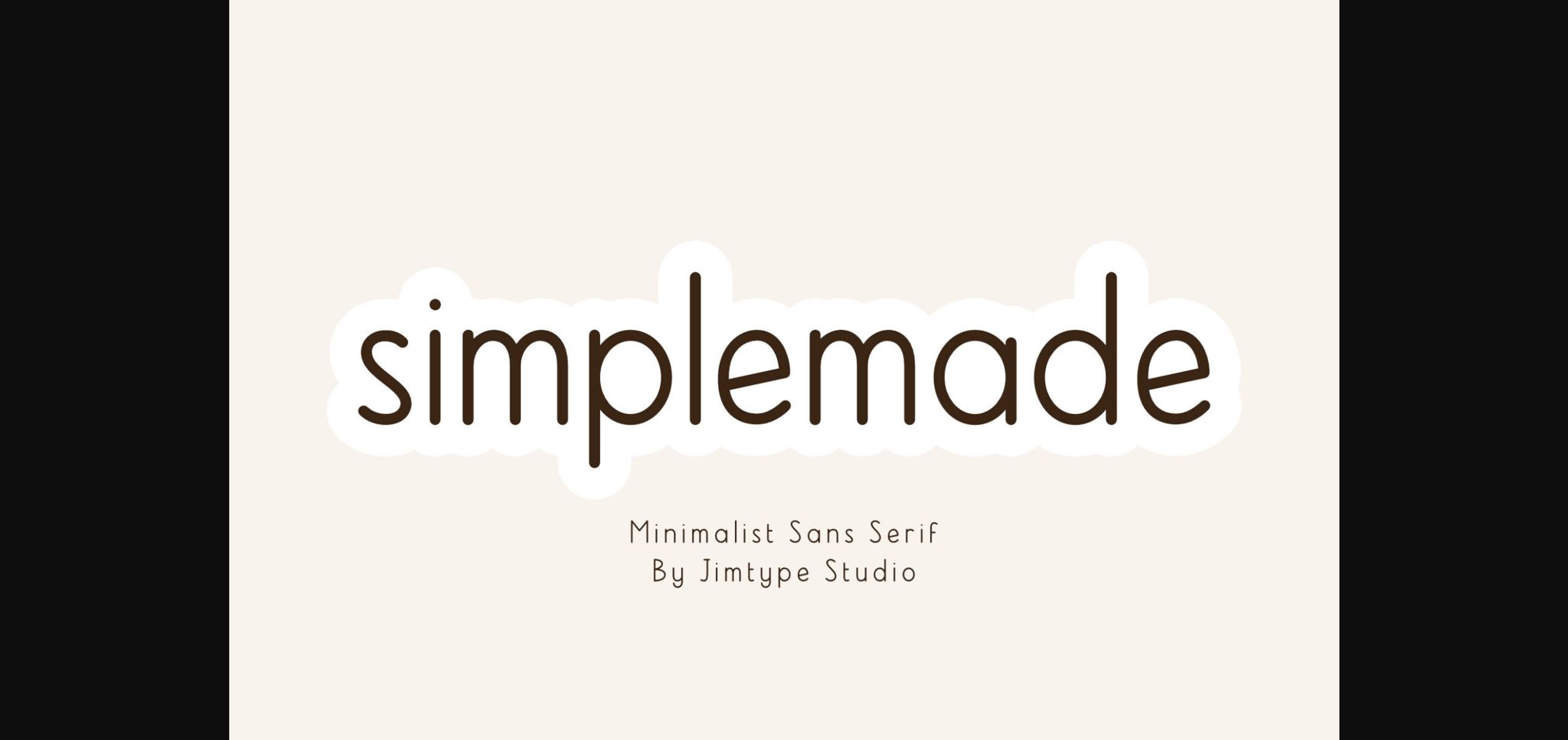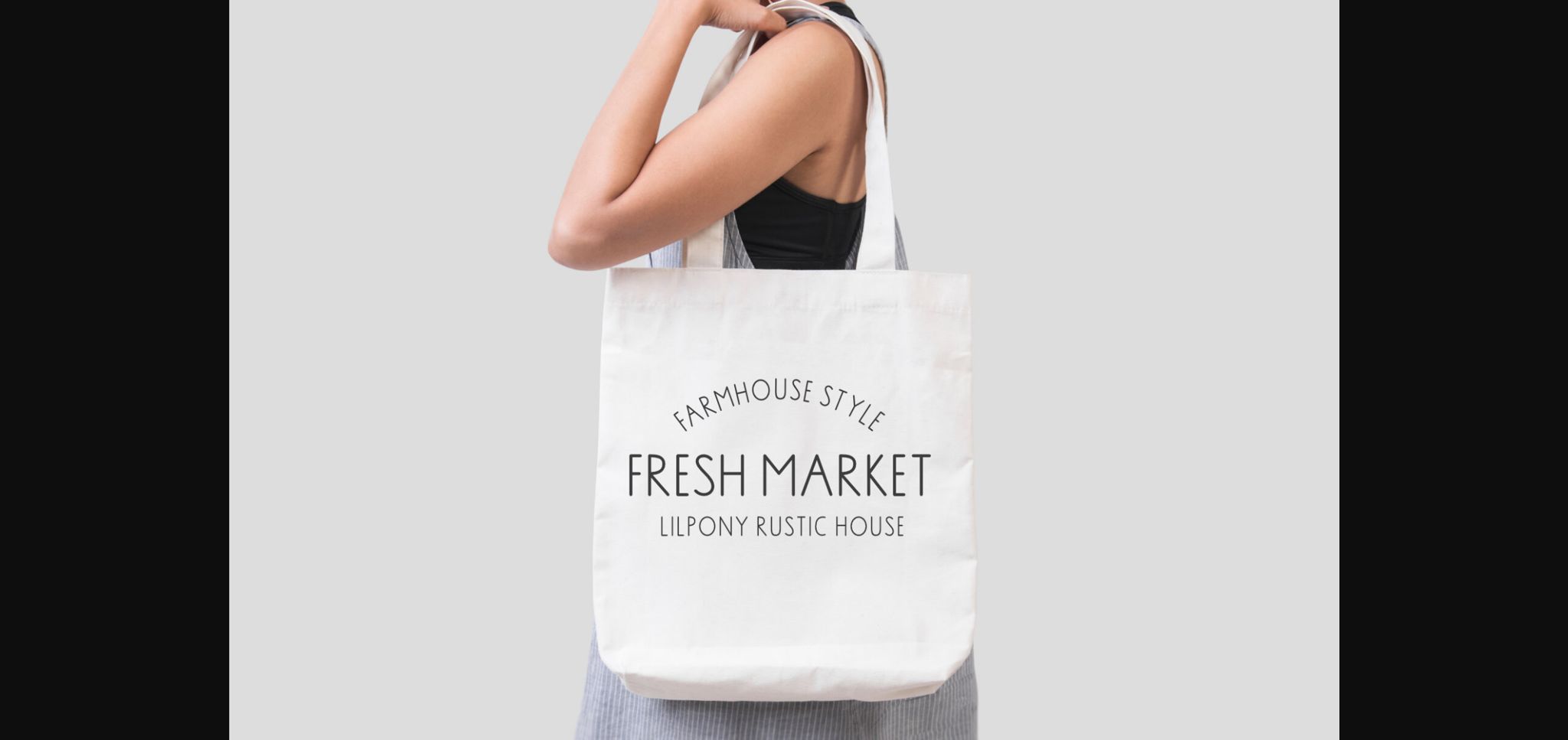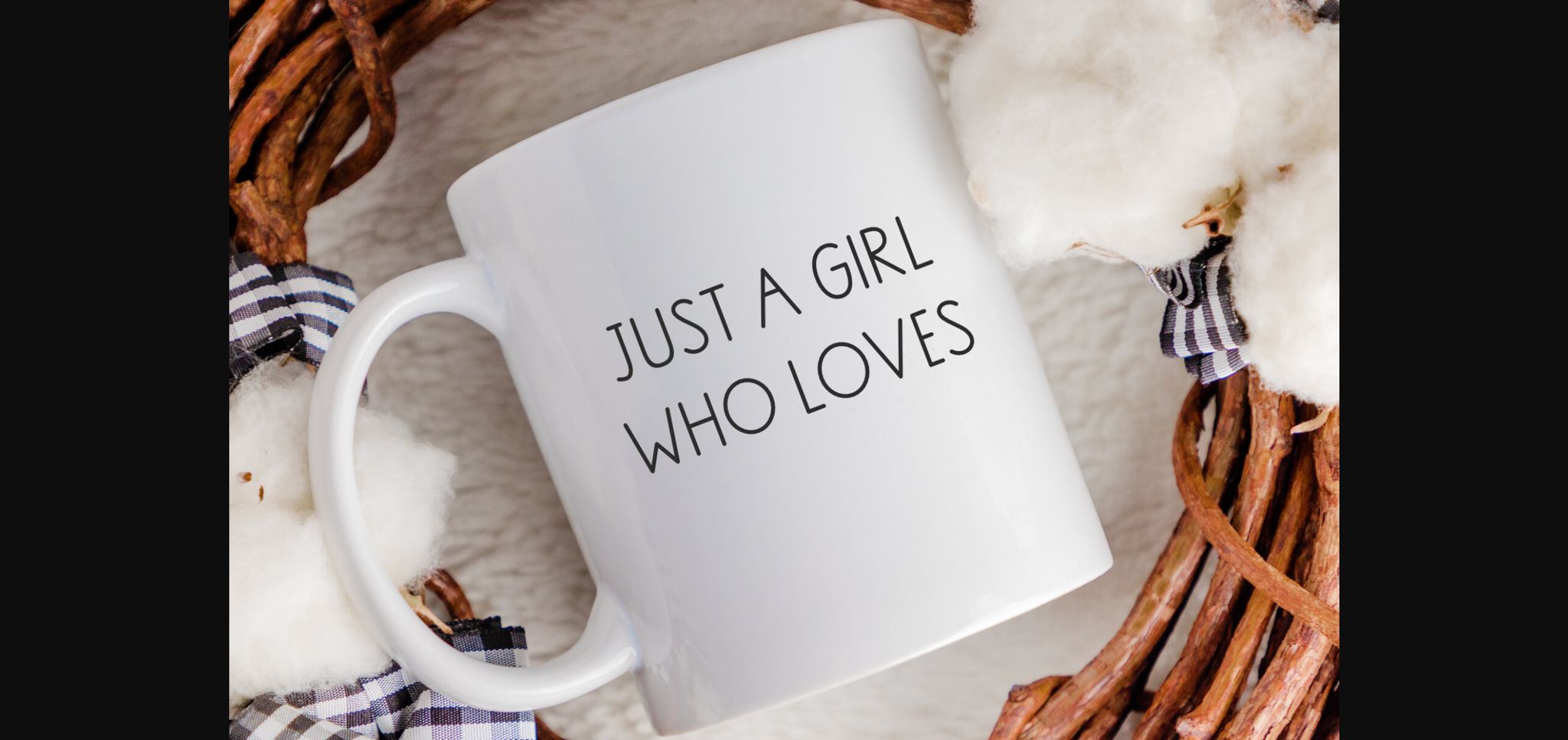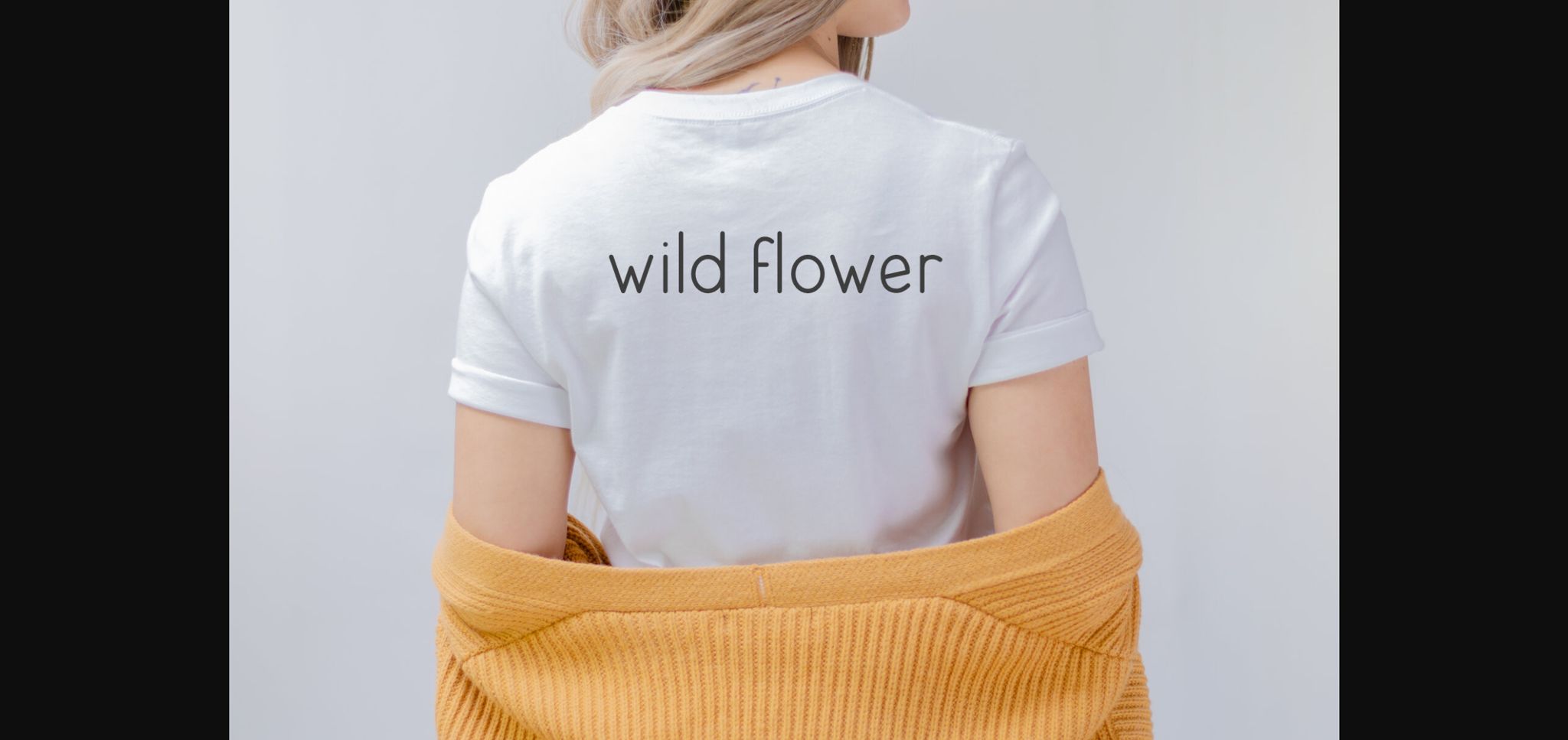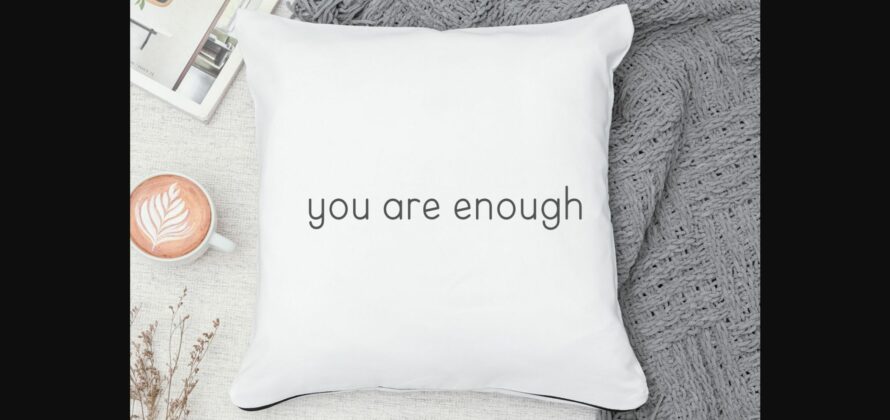
Simplemade Font
About Simplemade Font
Introducing ‘Simplemade Font’ – the epitome of simplicity and versatility in the world of fonts! This monoline, sans-serif font is designed for those who appreciate the beauty of clean lines and farmhouse aesthetics. Whether you’re crafting with Cricut or seeking a minimalist touch, ‘Simplemade’ is your go-to font. Explore our font collection and infuse your projects with the charm of ‘Simplemade Font.